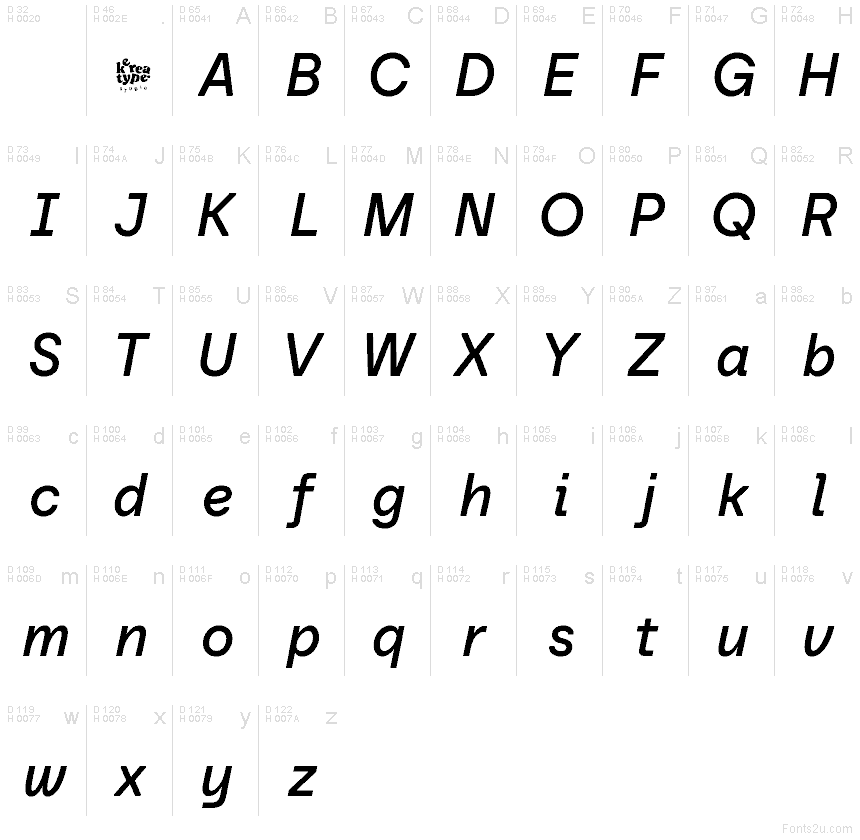
Baru Sans Demo Medium Italic
Baru Sans Medium Italic font by Kereatype Studio is a free sans serif typeface. With a confident lean and a calm medium weight, it adds pace without sacrificing clarity. The curves feel clean and inky-smooth, counters stay open, and the rhythm stays even, so text reads fast while still looking lively. When you need emphasis that doesn’t shout, this style gives you motion and polish in one move.
Using Baru Sans Medium Italic, headlines and subheads pop, brand taglines gain a sleek tilt, and callouts, packaging, social graphics, and editorial promos carry a crisp, modern tone. It also works beautifully for UI badges and short labels. Pair it with Baru Sans Regular from the same family for body copy; give this free font a touch of extra tracking at larger sizes to keep the texture airy.